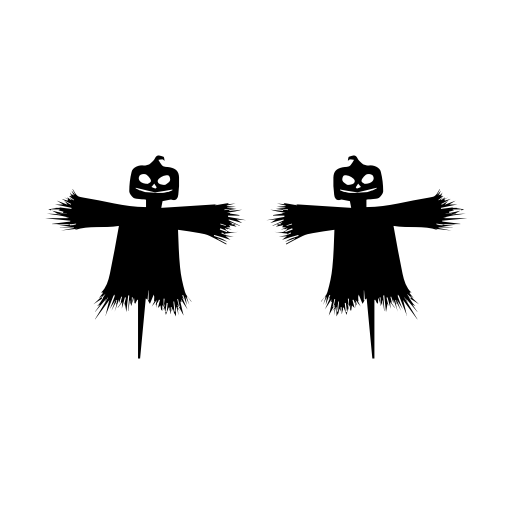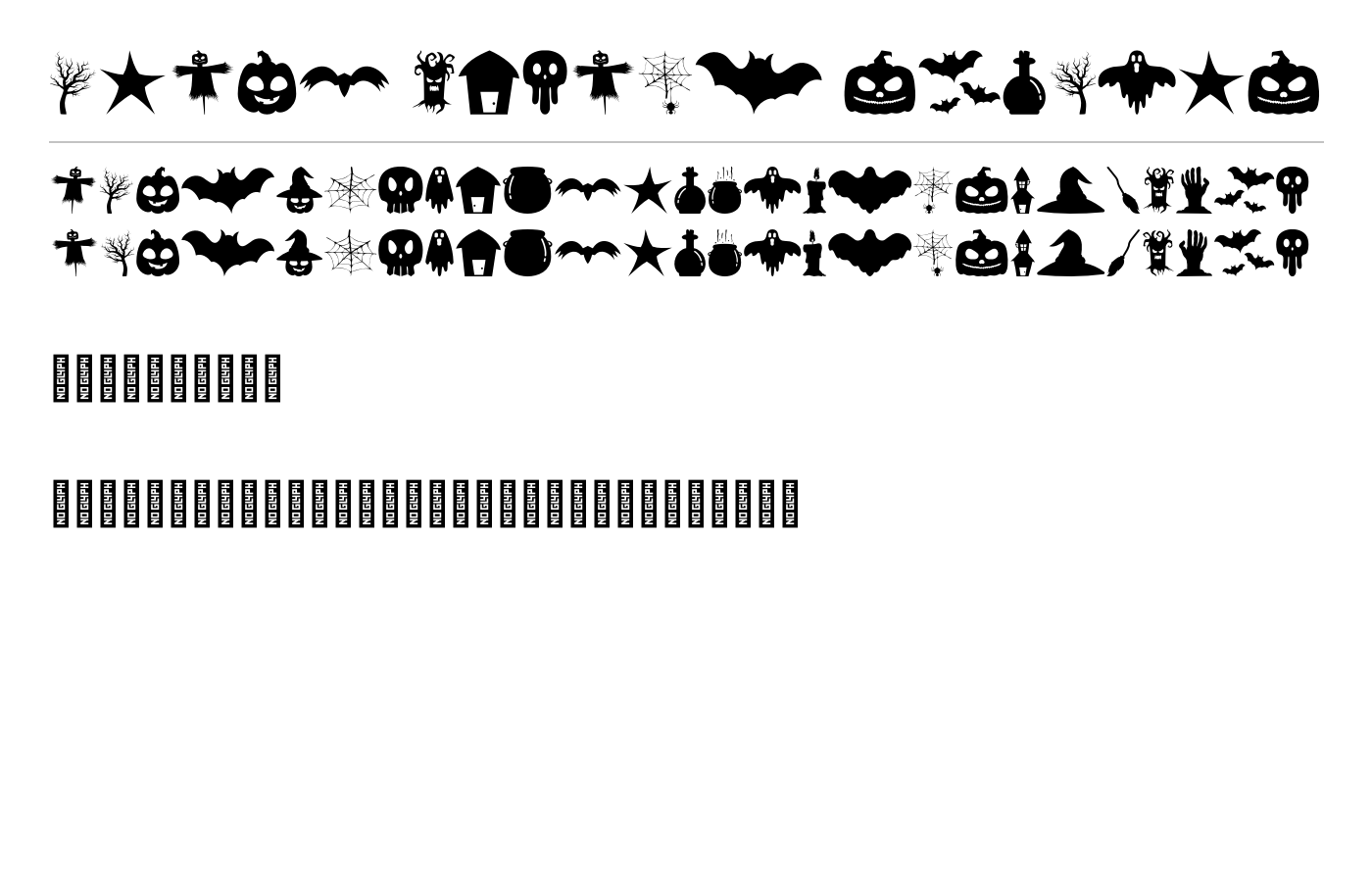
Black Wizard Symbols is a playful and spooky dingbat-style font filled with Halloween-themed icons like pumpkins, bats, witches, and ghosts. Its bold, high-contrast silhouettes make it ideal for adding a festive and eerie touch to party invitations, decorations, or seasonal branding, capturing a fun and mysterious vibe perfect for all things Halloween.
Black Wizard Symbols Font
About Black Wizard Symbols Font